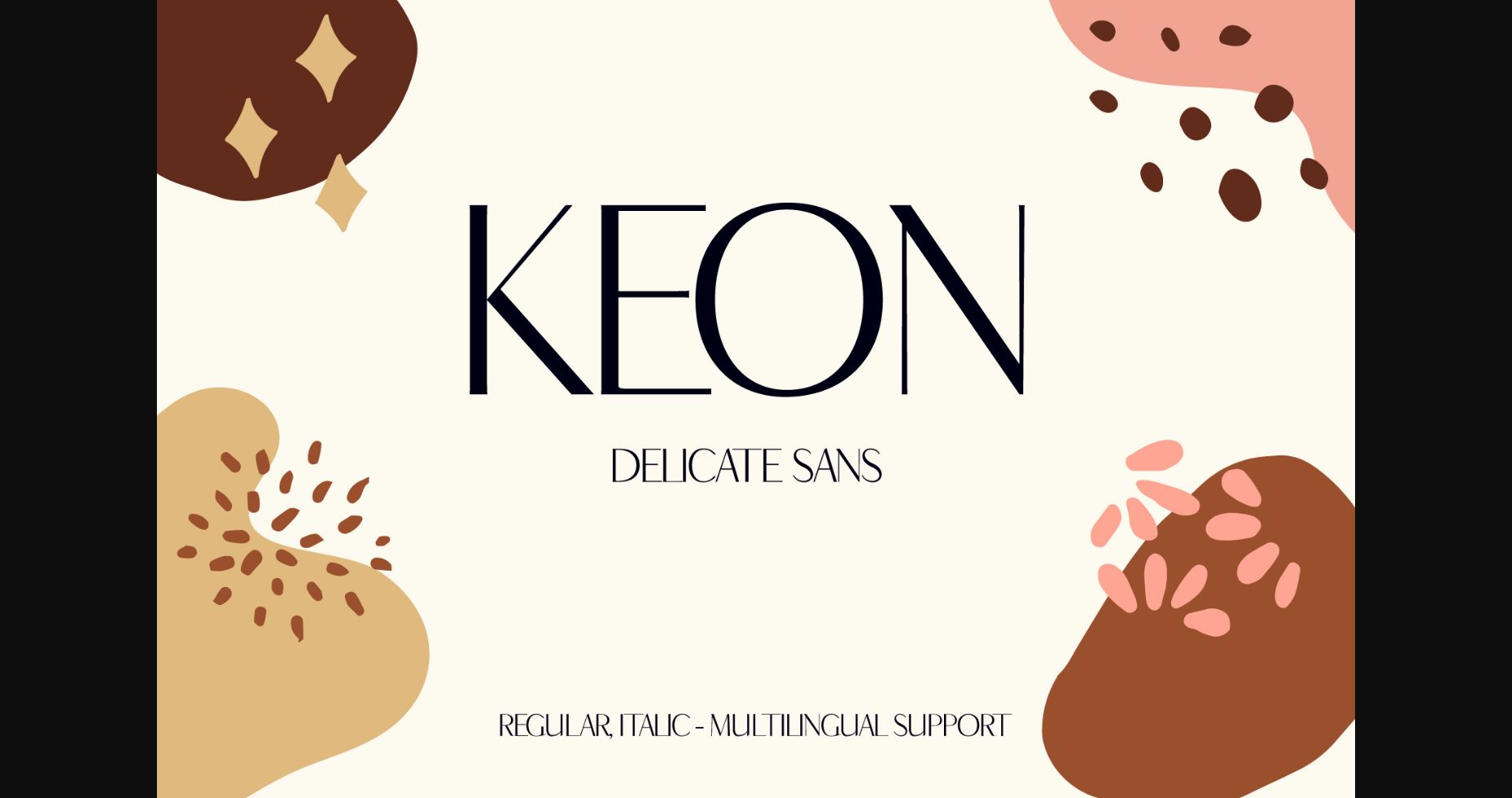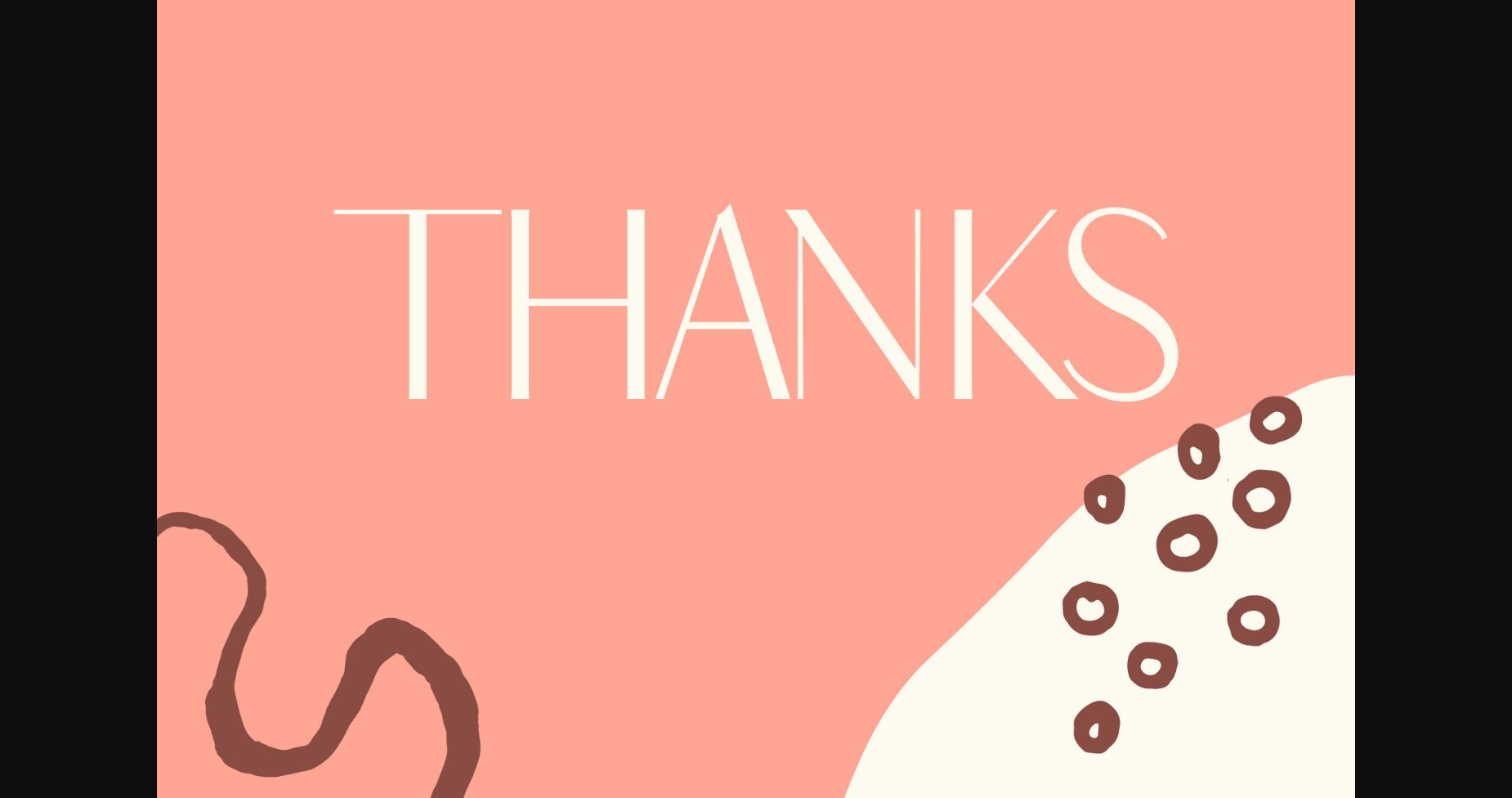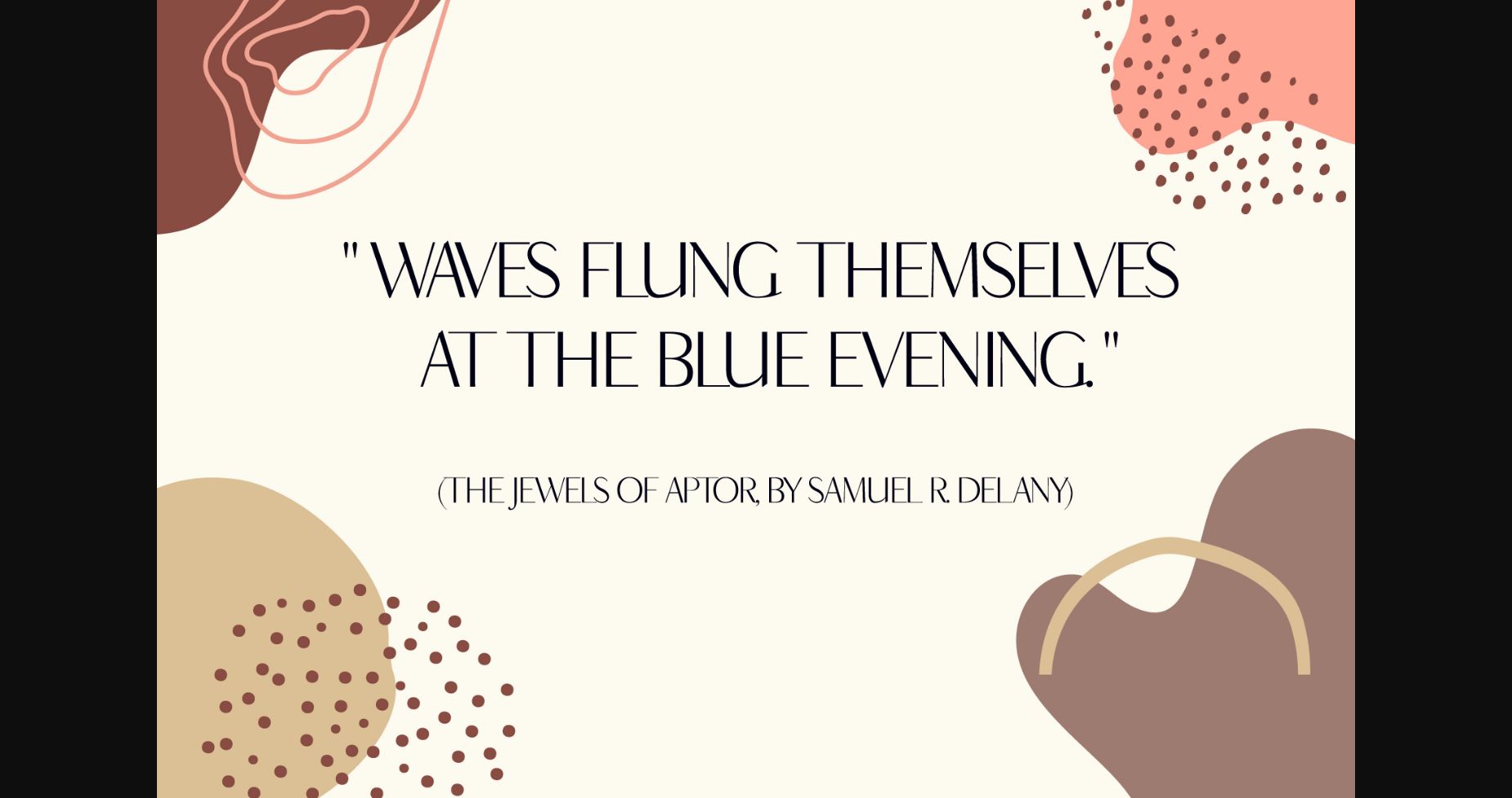
About Keon Font
Keon is a classy, minimalist, chic, and elegant sans-serif typeface. Its well-studied glyphs construction renders it a powerful choice when you are designing elegant posters, magazine covers, luxurious banners, fashion ads, social media banners, and many more. It perfectly fits a bohemian style as well as gallery products, cosmetics, perfumes, and high-end packaging.